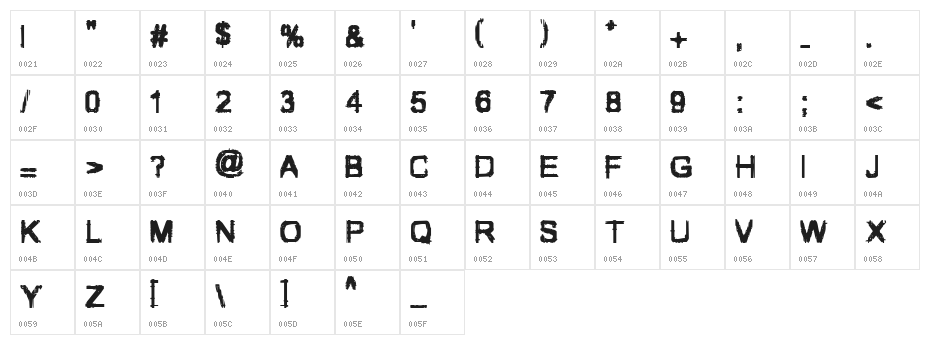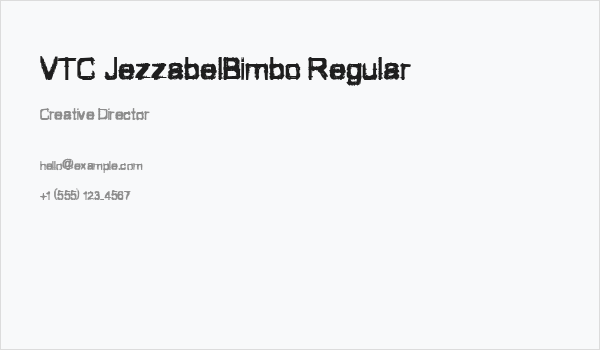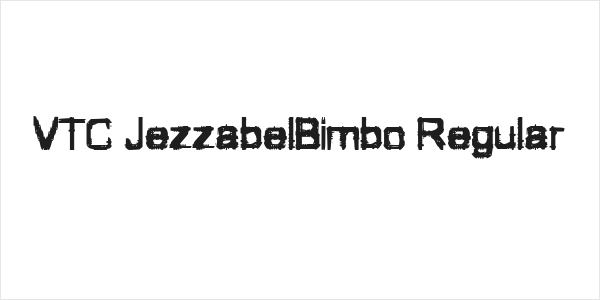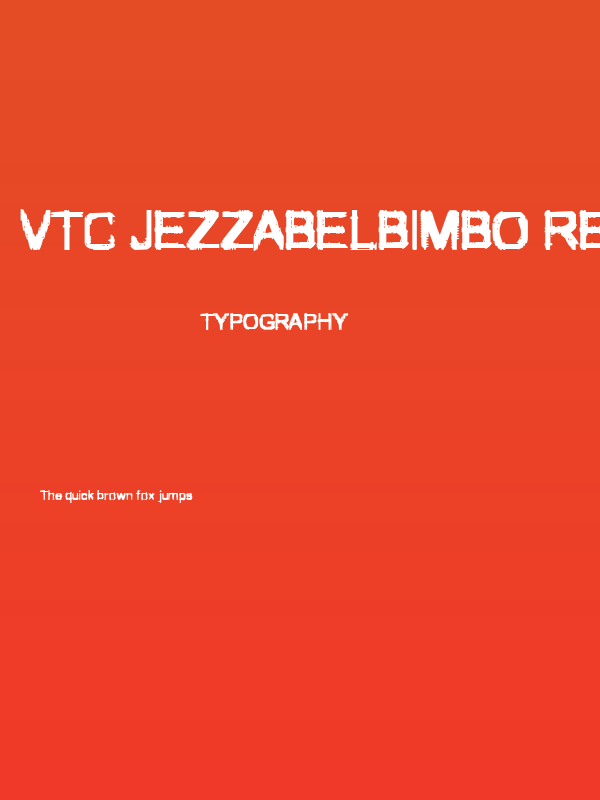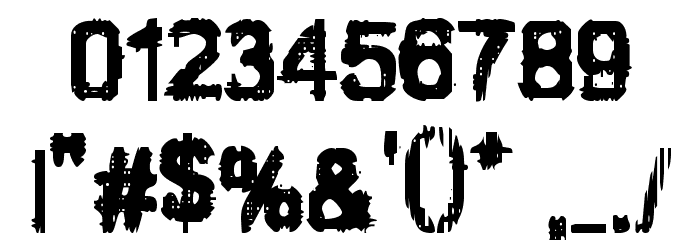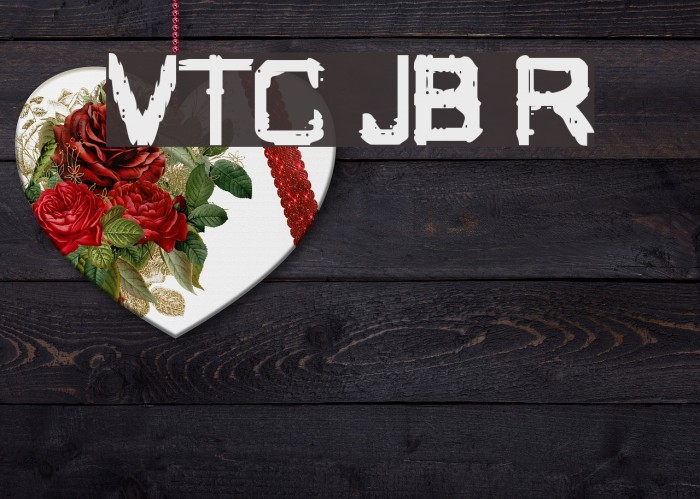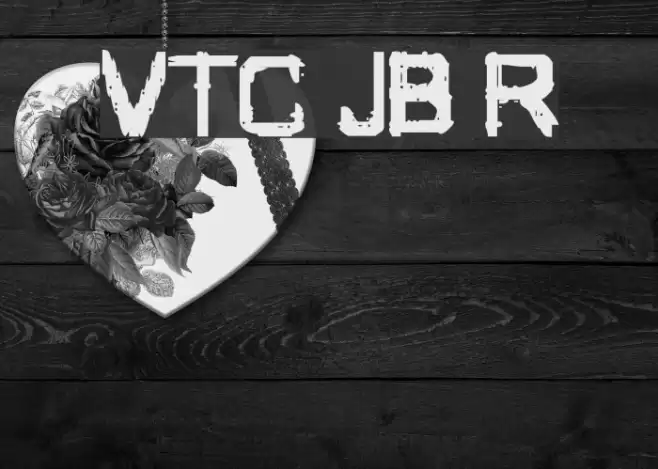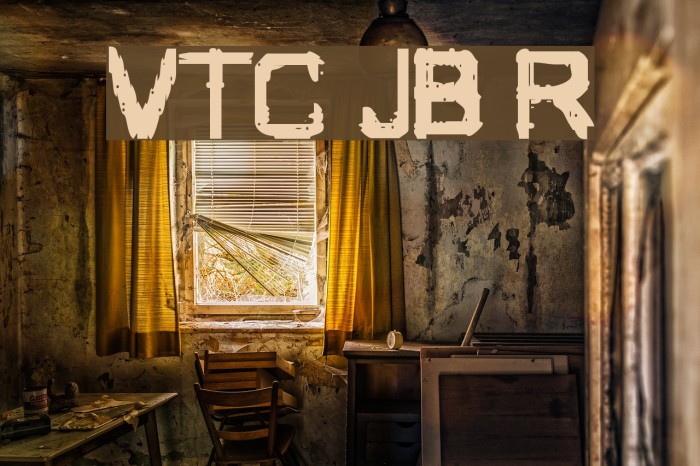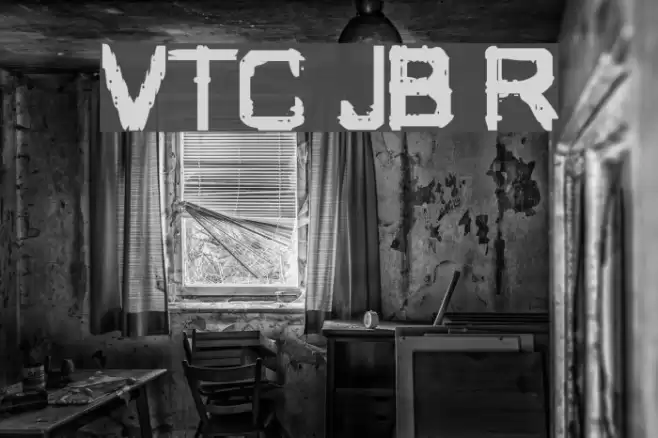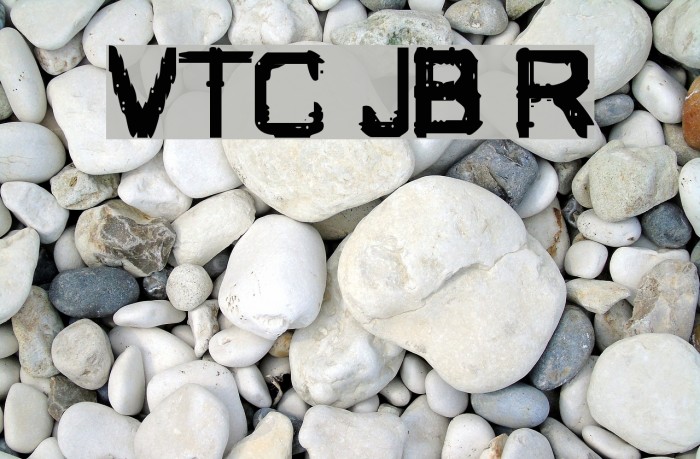
VTC JezzabelBimbo Regular Font
VTC JezzabelBimbo Regular Description
This font features a bold and distressed style, with a rough, textured appearance that gives it a grunge or urban feel. The characters are heavily stylized, with irregular edges and a somewhat chaotic look, making it stand out as a unique and eye-catching typeface. The uppercase and lowercase letters maintain a consistent design, while the numbers and special characters follow the same rugged aesthetic. This font is ideal for projects that require a bold statement or an edgy, artistic touch.
| Overall Style | Grunge, Urban, Edgy |
| Proposed Projects | Album covers, posters, streetwear branding, graffiti art, and edgy graphic design projects. |